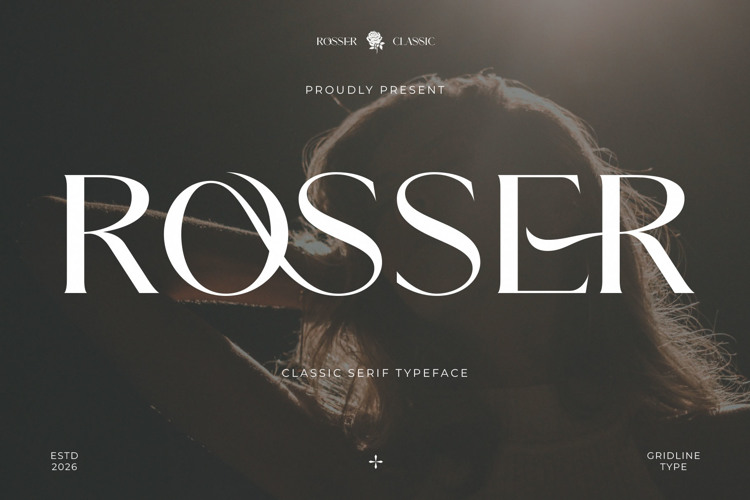
Rosser Font
Rosser is a refined high-contrast serif with a modern editorial character. Delicate hairline serifs, bold vertical stems, and elegant swashes give it a luxurious, high-fashion feel — ideal for logos, branding, wedding stationery, magazine headlines, and beauty projects. Free for personal use; a commercial license is available from the designer.